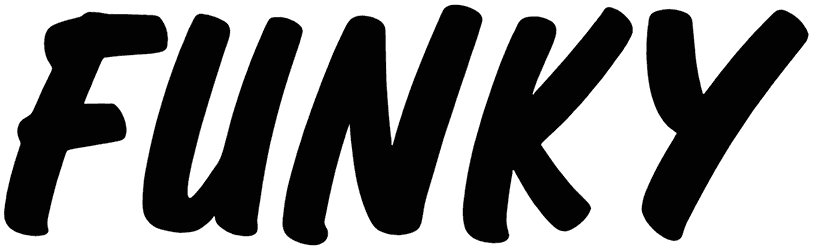
Funky Font
If you constantly find yourself designing posters and anything else like that requiring an eye-catching headline, you should know we’re always rooting for you. Case in point, we’re just about to introduce you to an excellent comic font named Funky.
Those bold rounded letters of it won’t ever fail in adding an energetic theme to your design. So go ahead and turn this all-caps font into party flyers, food branding designs, and more. You’re not going to miss the unavailable numerals.